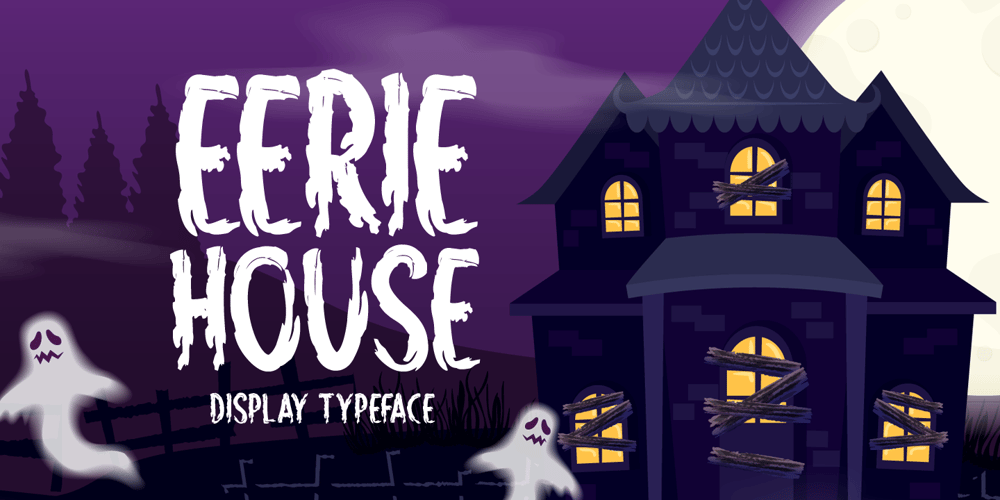
Eerie House Font Family was designed by Md Shohail Bhuian and published by Seemly Fonts. Eerie House contains 1 styles and family package options. Eerie House is a creepy and dark-looking display font. It is perfectly suitable for any Halloween-related project or crafty idea! The only limit is your imagination.